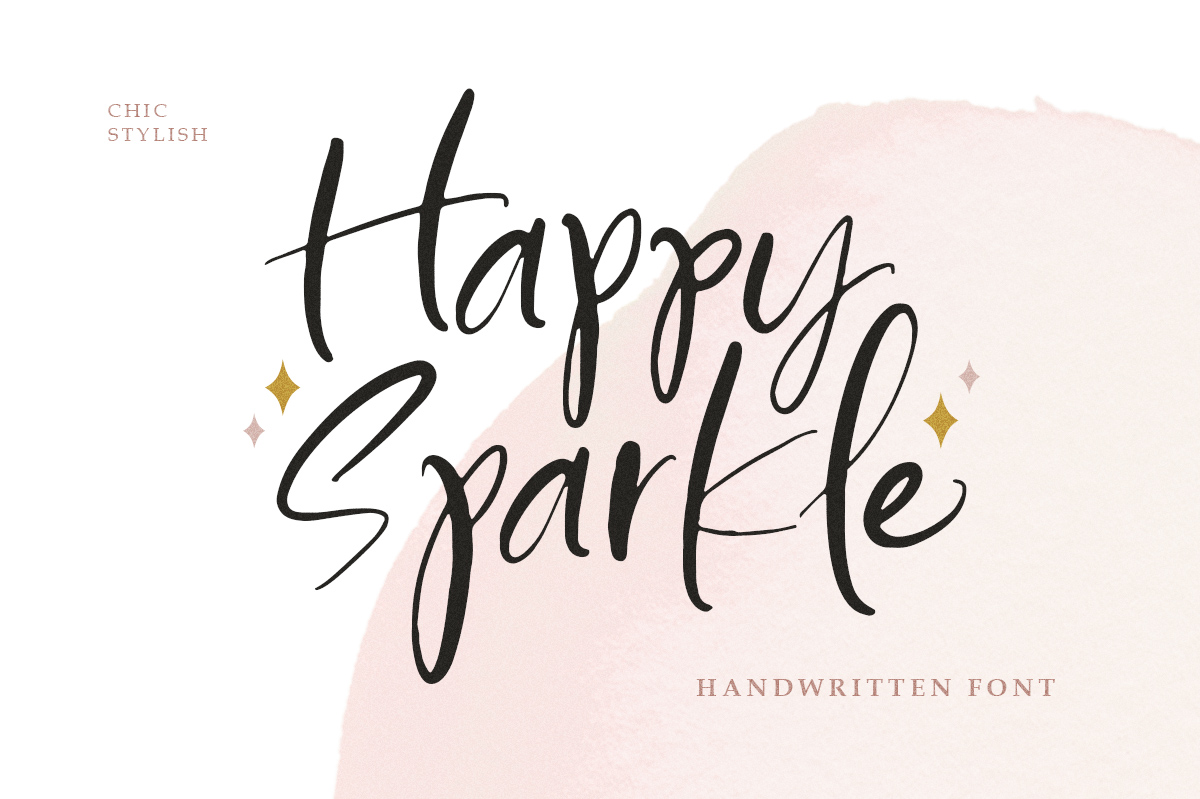
Happy Sparkle Font
Perfect for party invitations, greeting cards, logos, social media posts, and playful branding.
The Happy Sparkle Font excites designers with its cheerful, handwritten style full of lively energy and fun vibes.
The Happy Sparkle Font Free Download is a bubbly script typeface featuring whimsical loops and joyful strokes, perfect for kids’ products, festive designs, and creative projects that need a burst of happiness.
One of the key strengths of Happy Sparkle Font is its ability to instantly convey positivity and charm while keeping text legible and engaging.
In branding, Happy Sparkle radiates fun, creativity, and youthful spirit. It pairs excellently with bright colors, playful illustrations, and dynamic layouts to create eye-catching and memorable visuals.
For digital projects, this font enhances social media graphics, website banners, and digital invitations, adding a vibrant and joyful flair to your typography.